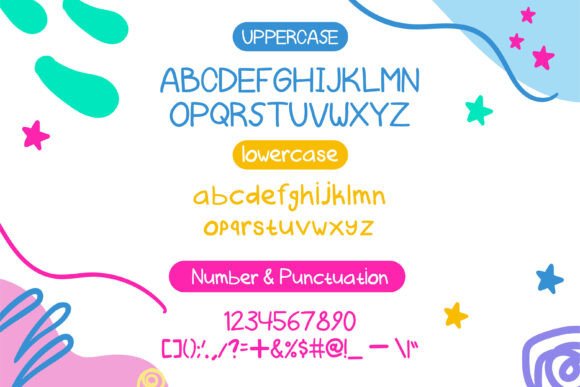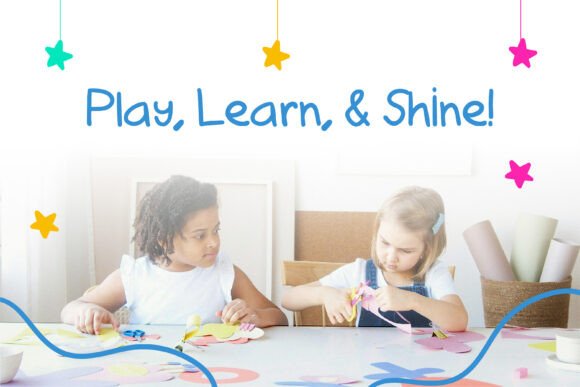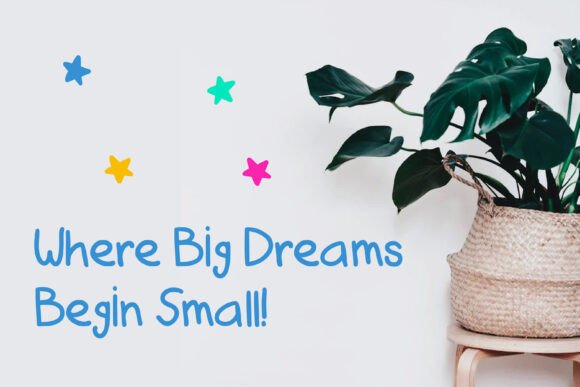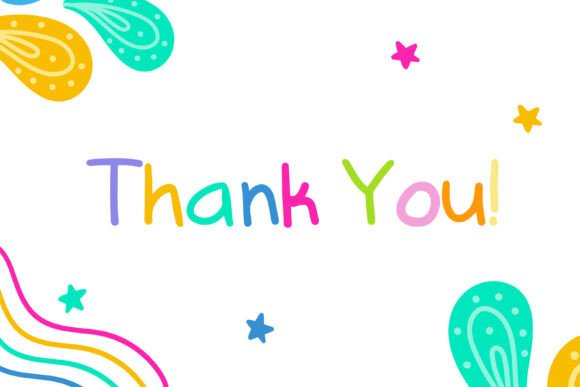
Introduction to Bouncy Bliss Font
Discover the playful charm of Bouncy Bliss, a delightful font that excels in versatility.
Drawing the eye with its whimsical design, this charming typeface is the perfect choice for crafting engaging childrenโs literature or creating captivating wedding invitations Whether youโre embellishing graceful stationary pieces or crafting compelling social media content, Bouncy Bliss brings an irresistible charisma to every creation.
Key Features of Bouncy Bliss Font